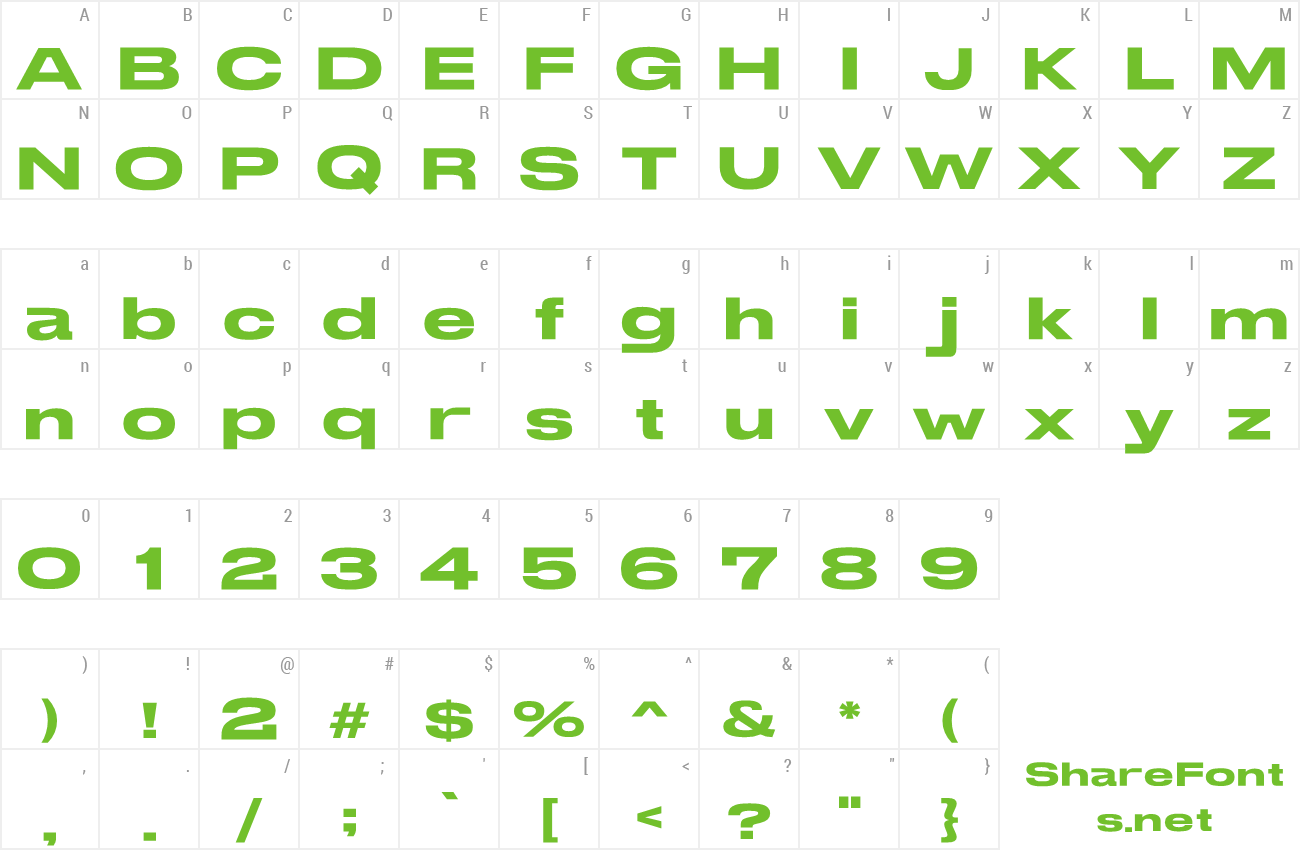
Stretch Pro Font
Stretch Pro Font - My fonts for free use are. This font is for personal use onlyplease contact me before any commercial use. Web download stretch pro font family · free for personal use · hi! For a slightly elongated version, type a character twice. Stretch pro font is a basic helvetica that is turned wide, this is a cool sans serif font with a futuristic and modern theme. With its neat and beautiful. Web to utilize the unique stretch pro font stretching feature, follow these instructions:
Web download stretch pro font family · free for personal use · hi! With its neat and beautiful. Stretch pro font is a basic helvetica that is turned wide, this is a cool sans serif font with a futuristic and modern theme. This font is for personal use onlyplease contact me before any commercial use. My fonts for free use are. Web to utilize the unique stretch pro font stretching feature, follow these instructions: For a slightly elongated version, type a character twice.
For a slightly elongated version, type a character twice. Web download stretch pro font family · free for personal use · hi! Stretch pro font is a basic helvetica that is turned wide, this is a cool sans serif font with a futuristic and modern theme. This font is for personal use onlyplease contact me before any commercial use. With its neat and beautiful. My fonts for free use are. Web to utilize the unique stretch pro font stretching feature, follow these instructions:
For a slightly elongated version, type a character twice. Web to utilize the unique stretch pro font stretching feature, follow these instructions: My fonts for free use are. Stretch pro font is a basic helvetica that is turned wide, this is a cool sans serif font with a futuristic and modern theme. This font is for personal use onlyplease contact.
My fonts for free use are. With its neat and beautiful. Web to utilize the unique stretch pro font stretching feature, follow these instructions: For a slightly elongated version, type a character twice. Stretch pro font is a basic helvetica that is turned wide, this is a cool sans serif font with a futuristic and modern theme.
Stretch pro font is a basic helvetica that is turned wide, this is a cool sans serif font with a futuristic and modern theme. Web download stretch pro font family · free for personal use · hi! My fonts for free use are. With its neat and beautiful. Web to utilize the unique stretch pro font stretching feature, follow these.
My fonts for free use are. With its neat and beautiful. Web to utilize the unique stretch pro font stretching feature, follow these instructions: This font is for personal use onlyplease contact me before any commercial use. Stretch pro font is a basic helvetica that is turned wide, this is a cool sans serif font with a futuristic and modern.
Stretch Pro Font
Stretch pro font is a basic helvetica that is turned wide, this is a cool sans serif font with a futuristic and modern theme. With its neat and beautiful. Web to utilize the unique stretch pro font stretching feature, follow these instructions: For a slightly elongated version, type a character twice. Web download stretch pro font family · free for.
Stretch Pro Futuristic Typeface on Behance
This font is for personal use onlyplease contact me before any commercial use. Stretch pro font is a basic helvetica that is turned wide, this is a cool sans serif font with a futuristic and modern theme. Web download stretch pro font family · free for personal use · hi! With its neat and beautiful. Web to utilize the unique.
Stretch Pro Font
Web to utilize the unique stretch pro font stretching feature, follow these instructions: My fonts for free use are. Web download stretch pro font family · free for personal use · hi! This font is for personal use onlyplease contact me before any commercial use. Stretch pro font is a basic helvetica that is turned wide, this is a cool.
Stretch Pro Futuristic Typeface on Behance
Web download stretch pro font family · free for personal use · hi! This font is for personal use onlyplease contact me before any commercial use. Web to utilize the unique stretch pro font stretching feature, follow these instructions: With its neat and beautiful. Stretch pro font is a basic helvetica that is turned wide, this is a cool sans.
This font is for personal use onlyplease contact me before any commercial use. My fonts for free use are. For a slightly elongated version, type a character twice. Web to utilize the unique stretch pro font stretching feature, follow these instructions: With its neat and beautiful.
With its neat and beautiful. This font is for personal use onlyplease contact me before any commercial use. My fonts for free use are. Web download stretch pro font family · free for personal use · hi! Stretch pro font is a basic helvetica that is turned wide, this is a cool sans serif font with a futuristic and modern.
Web To Utilize The Unique Stretch Pro Font Stretching Feature, Follow These Instructions:
Stretch Pro Font Is A Basic Helvetica That Is Turned Wide, This Is A Cool Sans Serif Font With A Futuristic And Modern Theme.